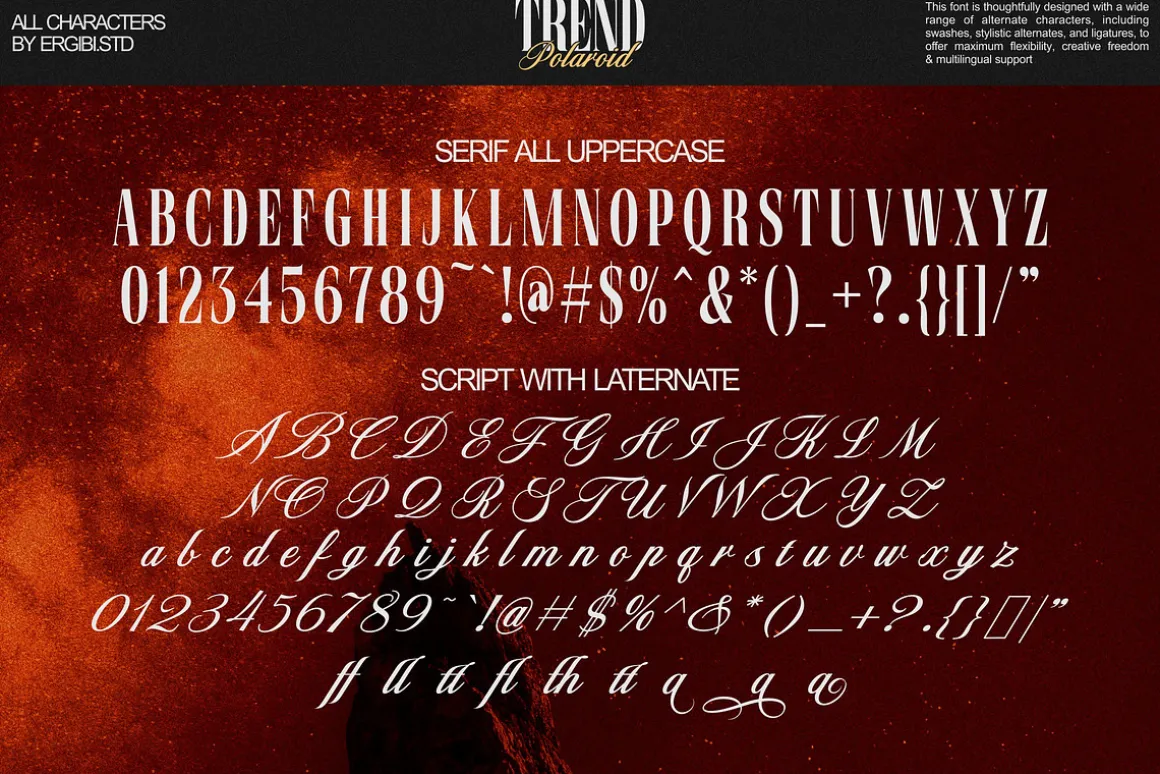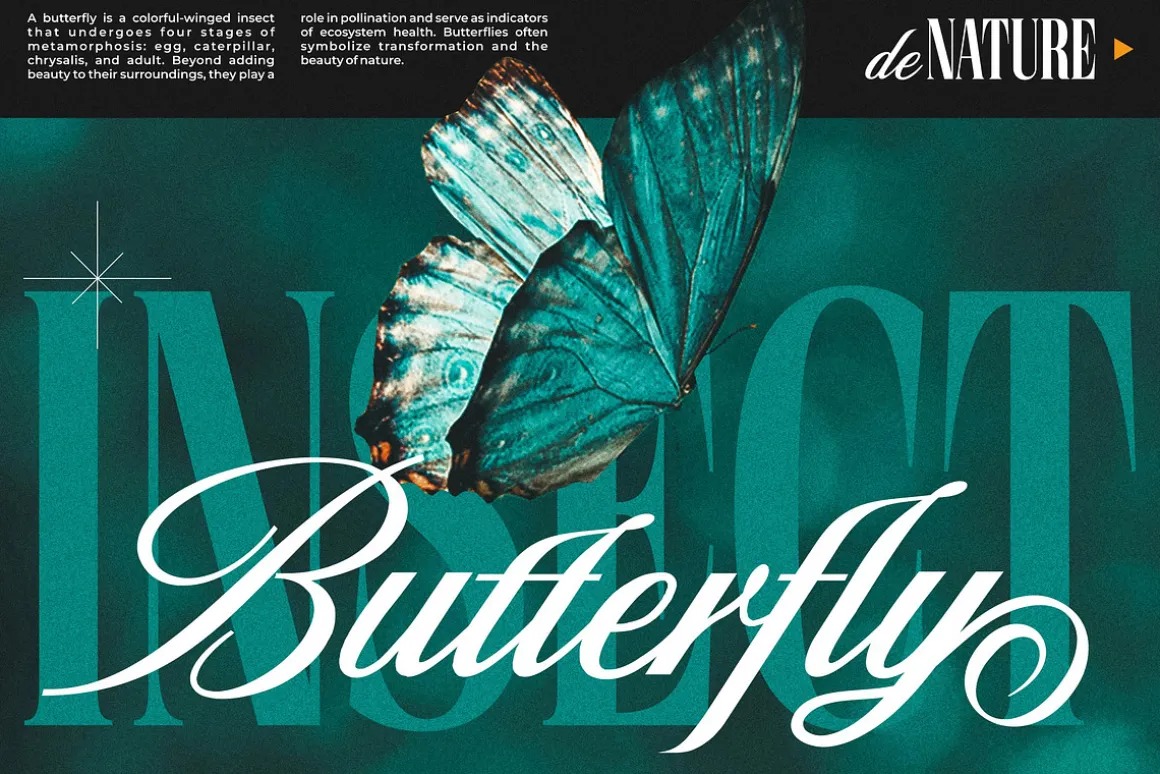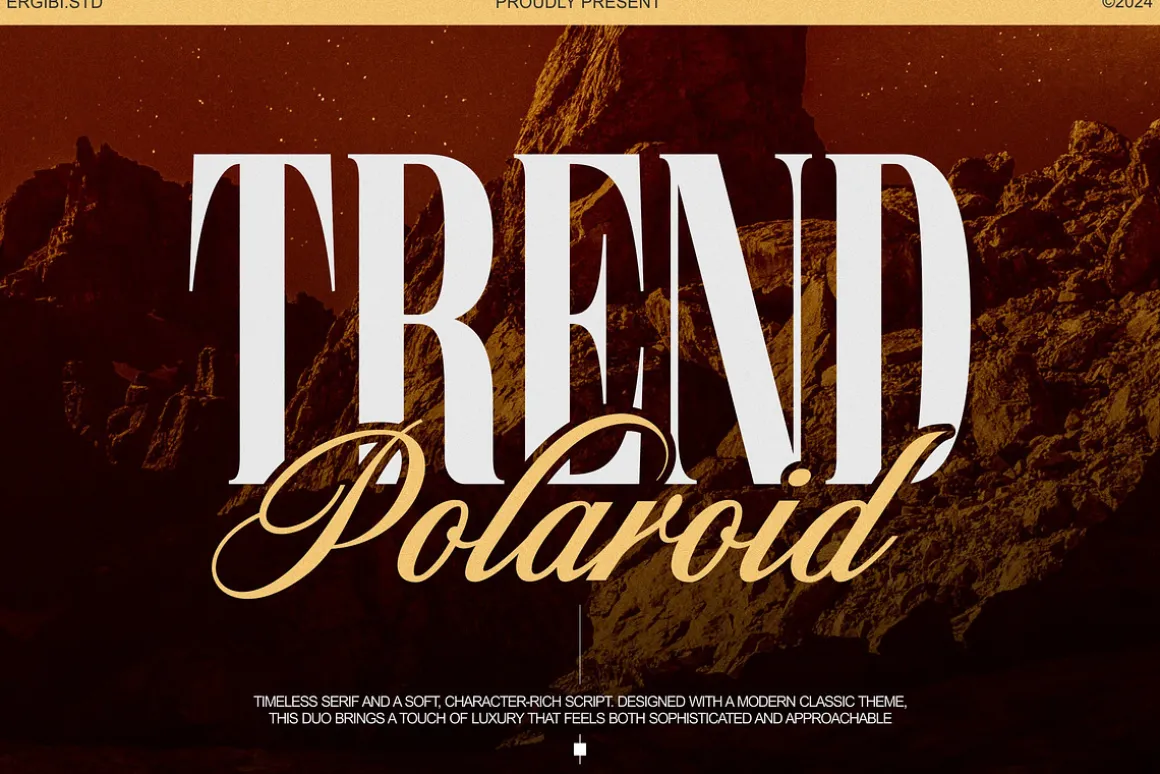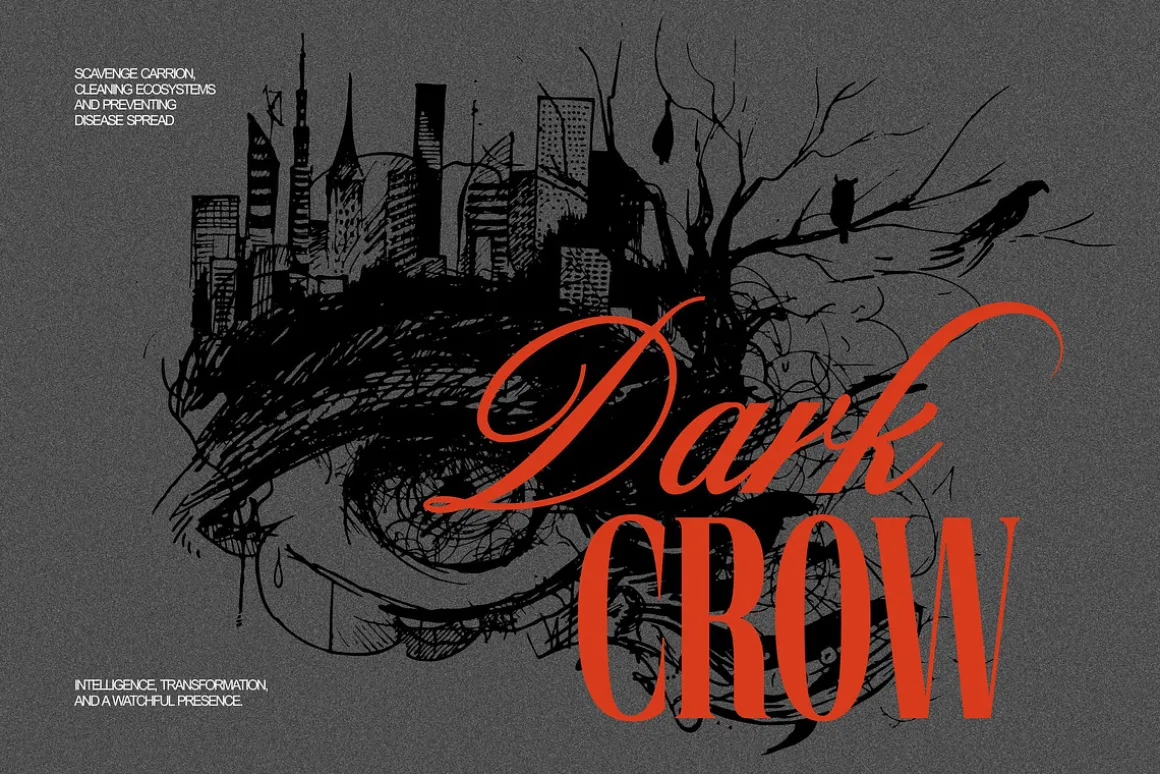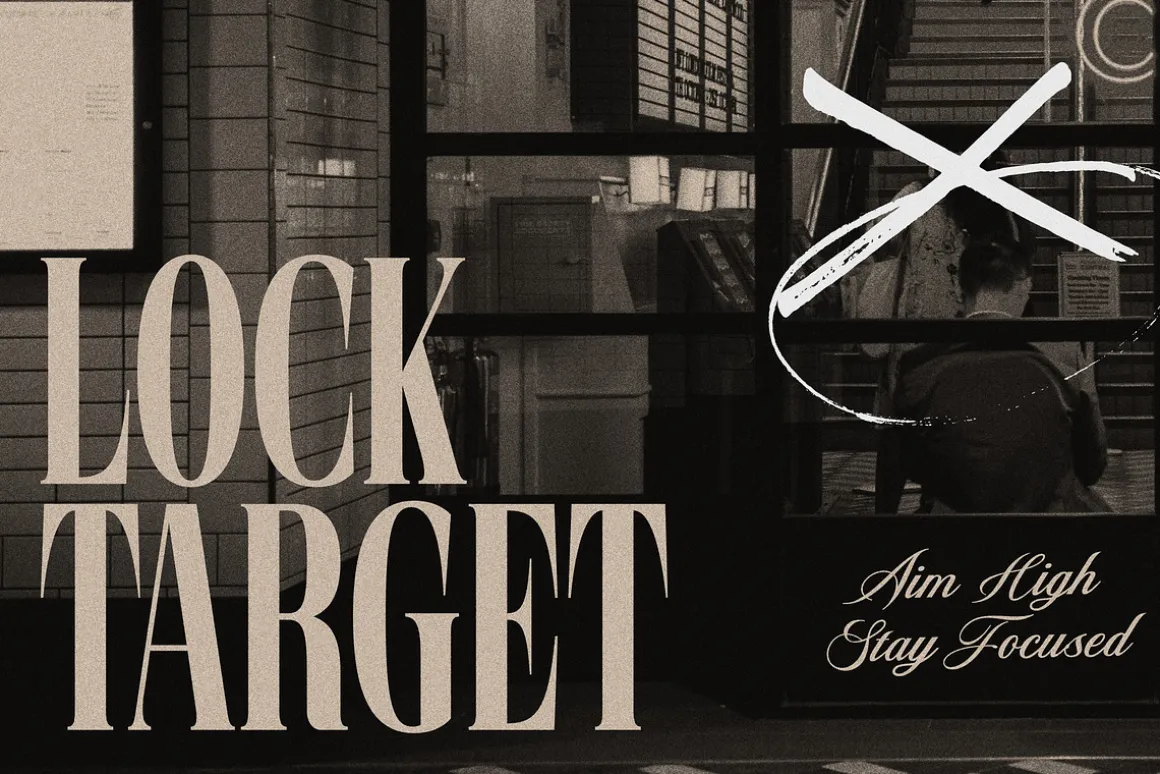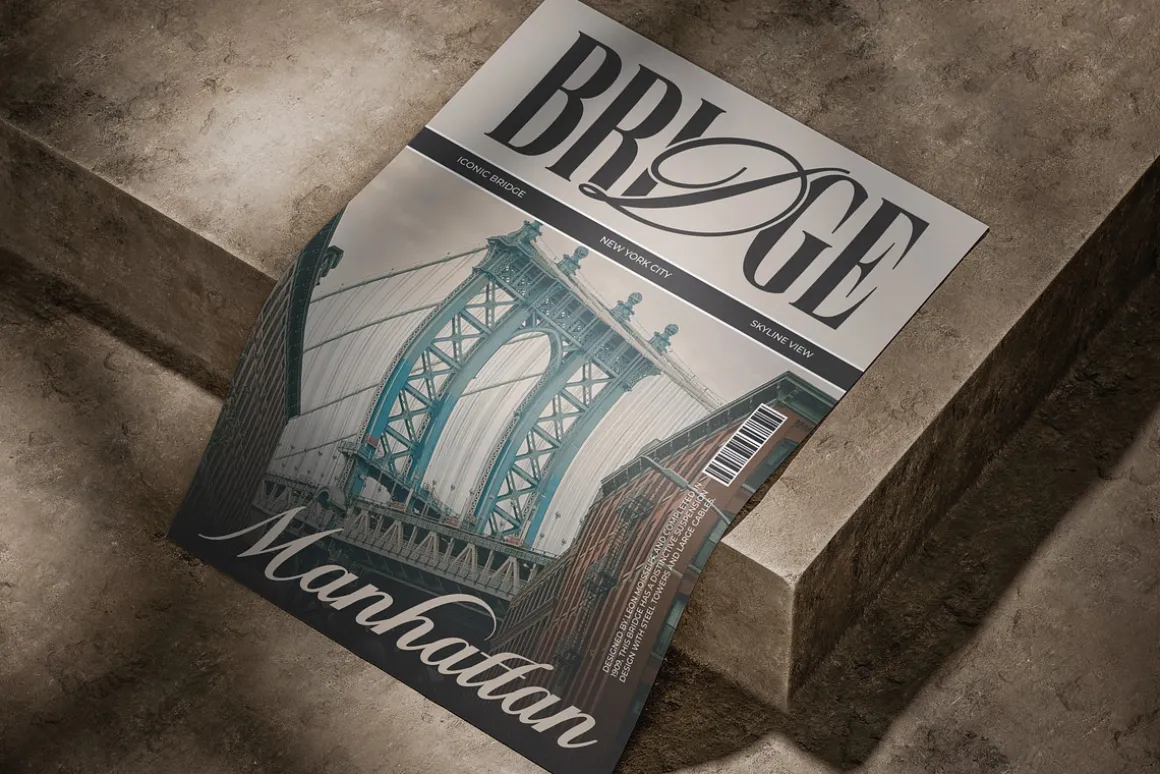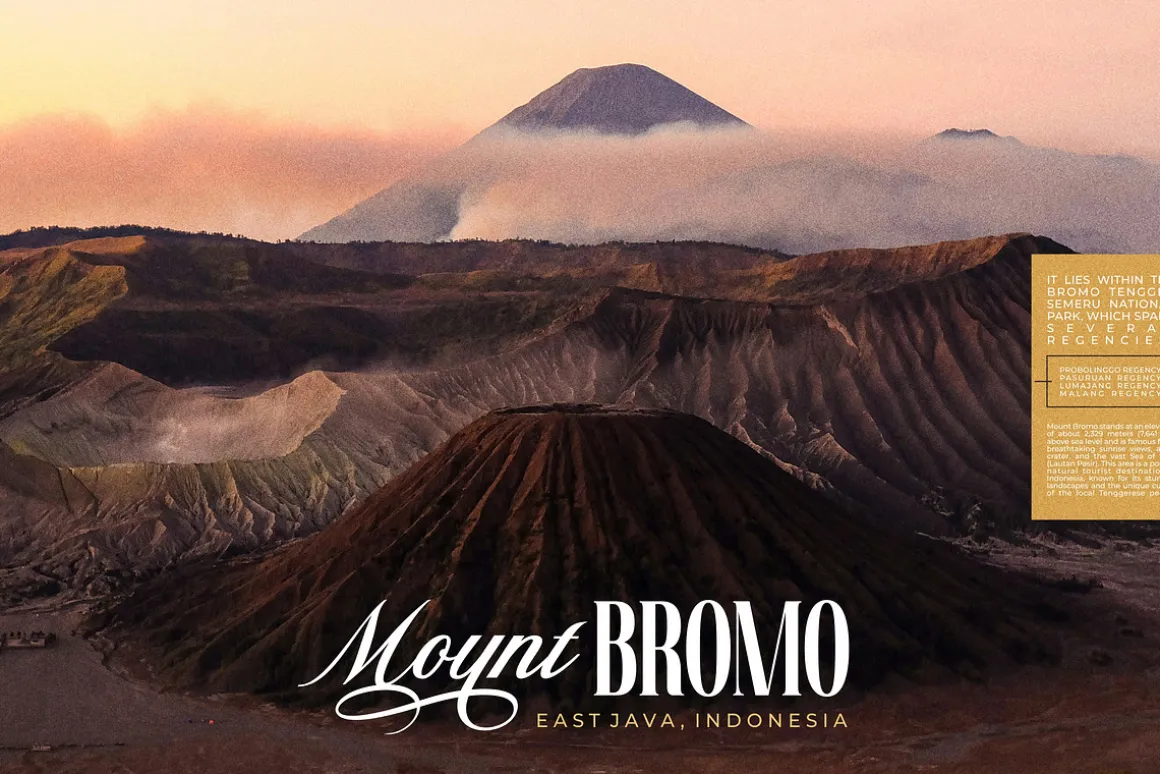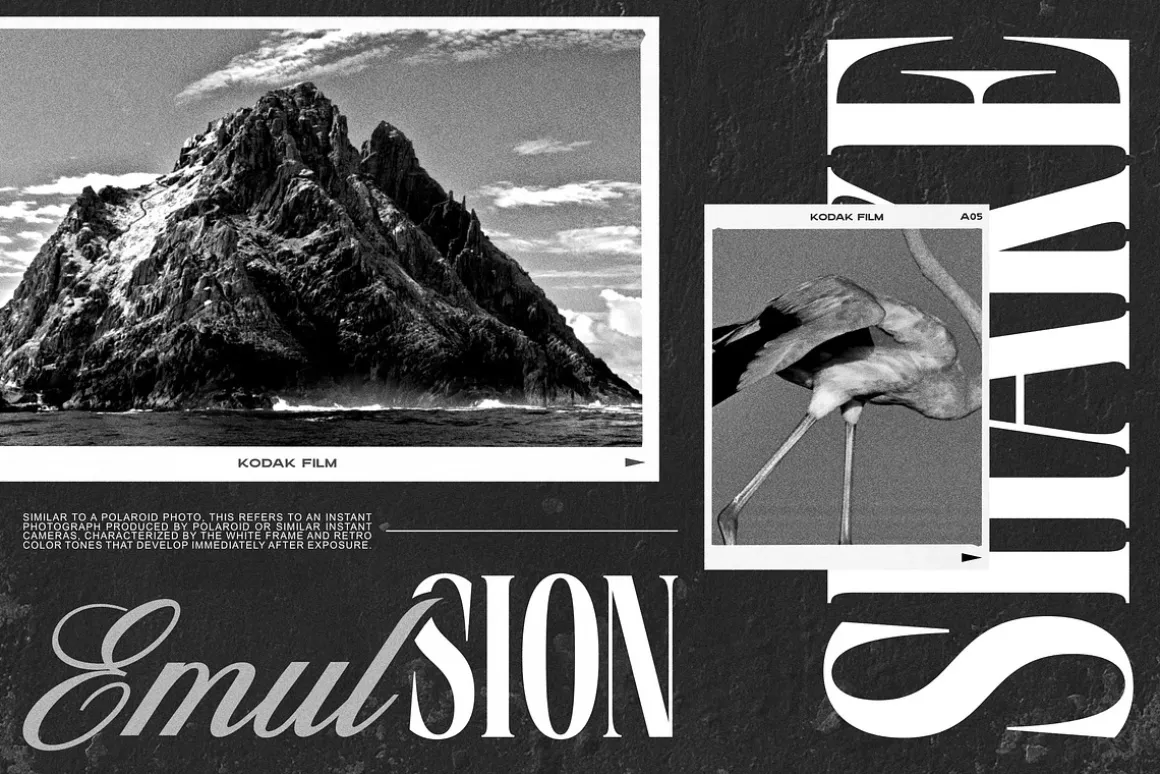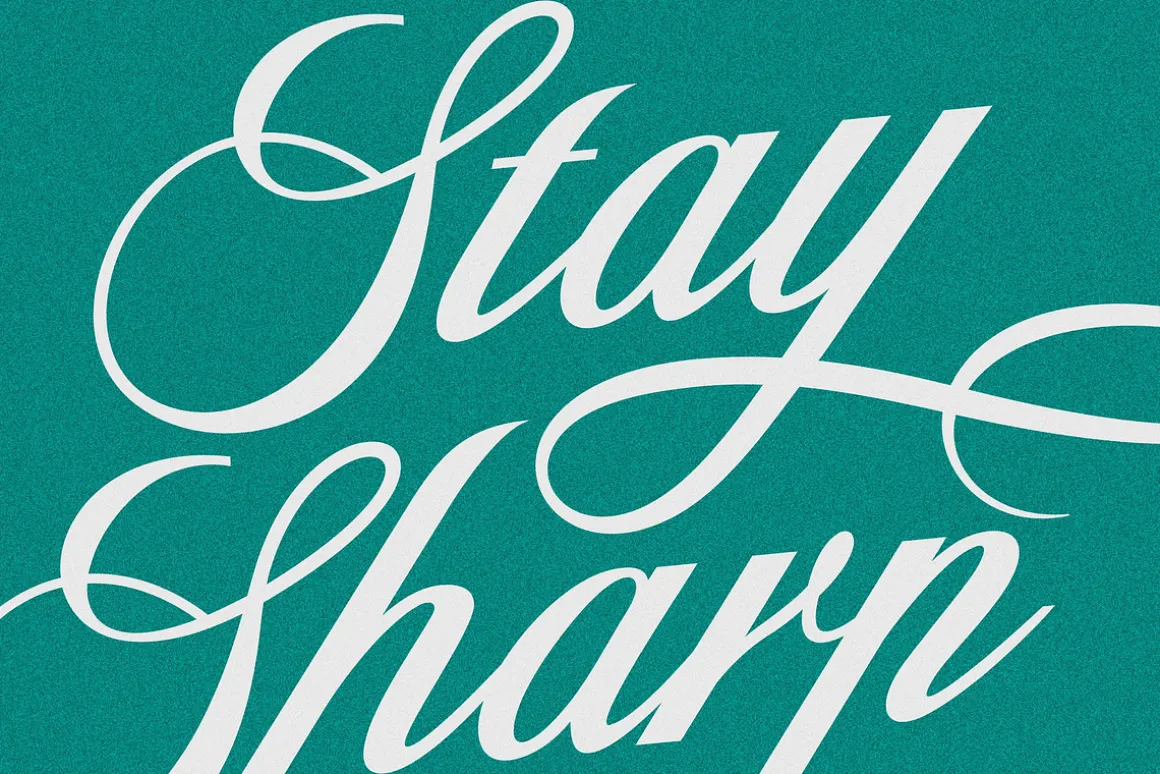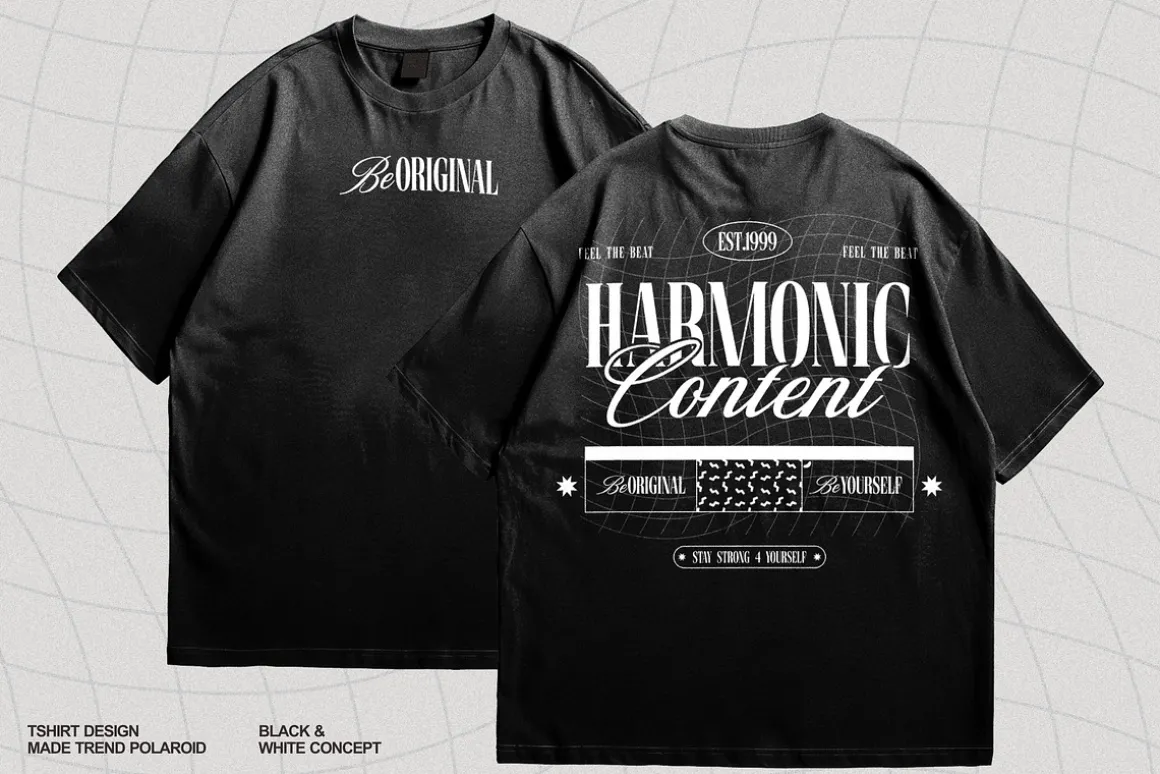
Trend Polaroid is a modern duo font combines the elegance of a refined serif with the bold, edgy style of a classic style-inspired script. timeless serif and a soft, character-rich script. designed with a modern classic theme, this duo brings a touch of luxury that feels both sophisticated and approachablePerfect for dynamic designs, it brings together sophistication and urban energy, making it ideal for branding, posters, merchandise, and creative projects that demand a contemporary and artistic vibe.
- Ligatures
- International Accent